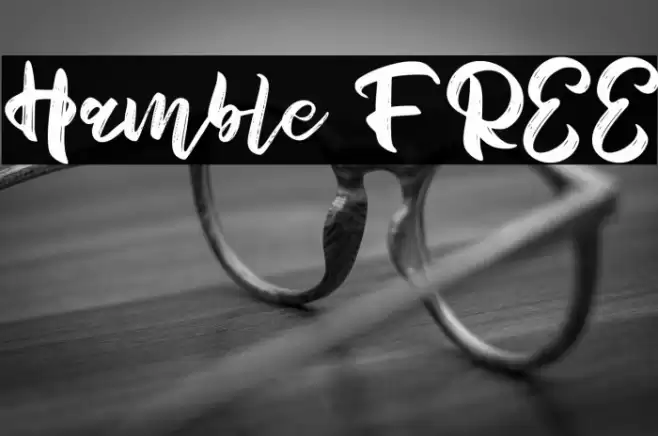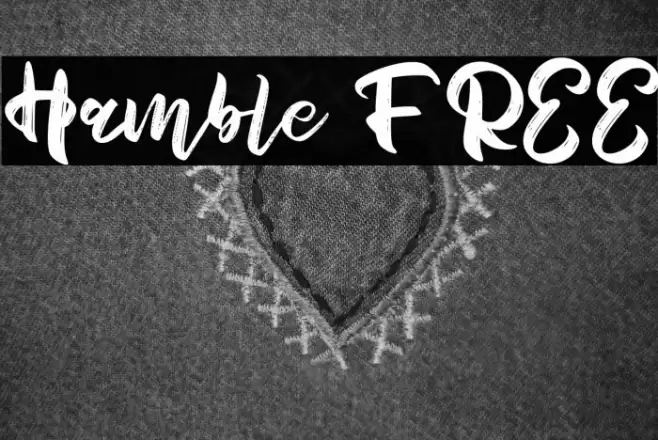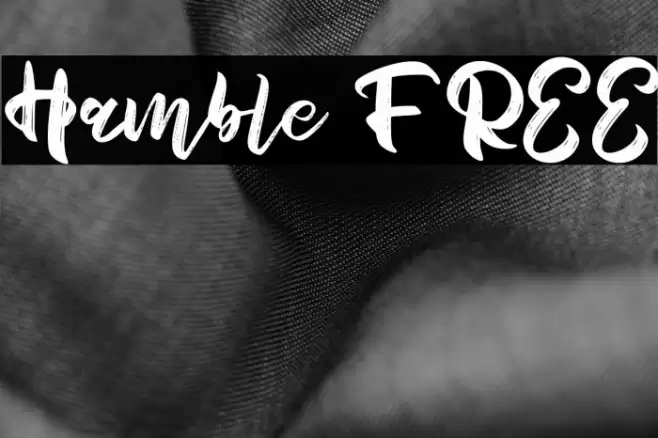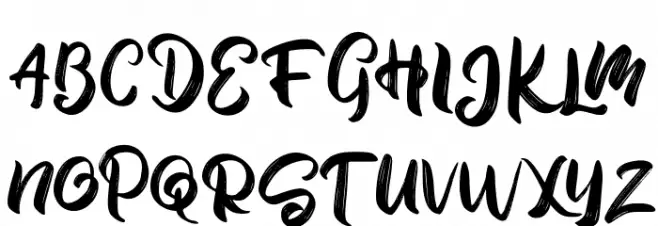
Hamble FREE Font
Hamble FREE Description
This font features a bold, expressive script style with a hand-painted appearance. The strokes are thick and dynamic, giving each letter a sense of movement and energy. The uppercase and lowercase letters are designed with a consistent brush-like texture, adding a personal and artistic touch. The characters have a slightly irregular baseline, enhancing the handwritten feel. This font is perfect for projects that require a creative and lively aesthetic, such as invitations, posters, and branding materials. The overall look is both modern and playful, making it suitable for a wide range of design applications.
A bold, expressive script font with a hand-painted, artistic style from Regular fonts.
- Proposed Projects: Ideal for invitations, posters, branding, and creative design projects.
- Overall Style: Modern, Artistic
- Use Case: Headlines, Logos, Creative projects